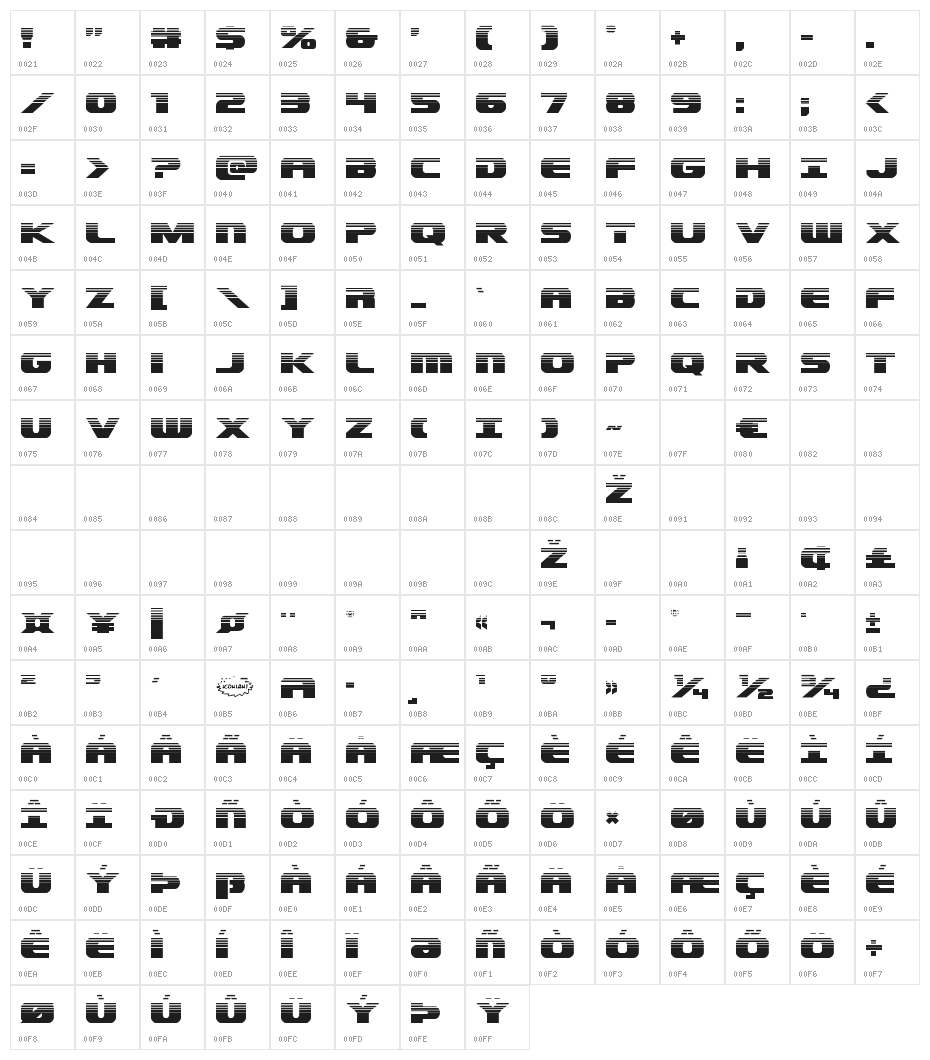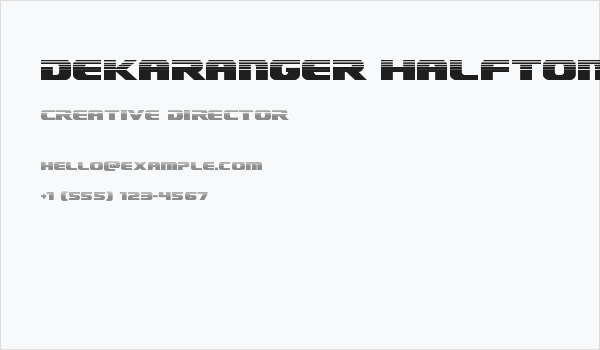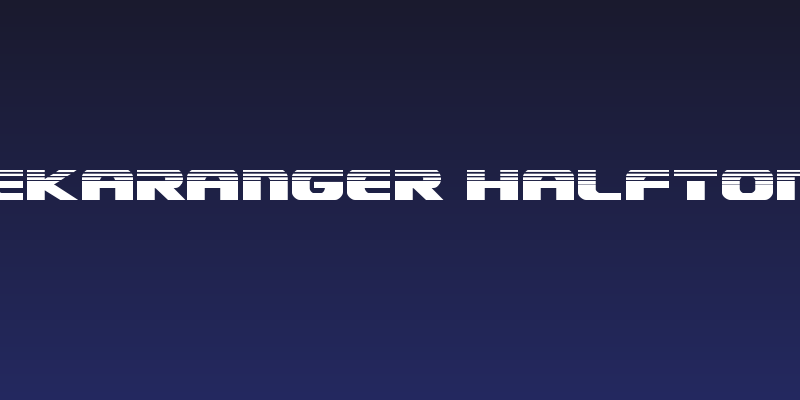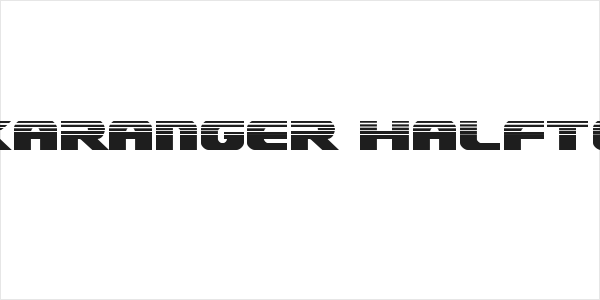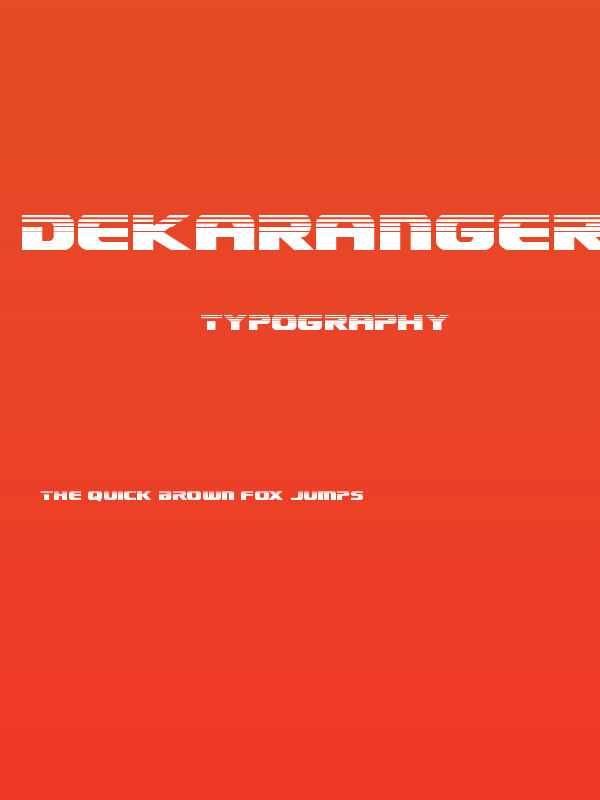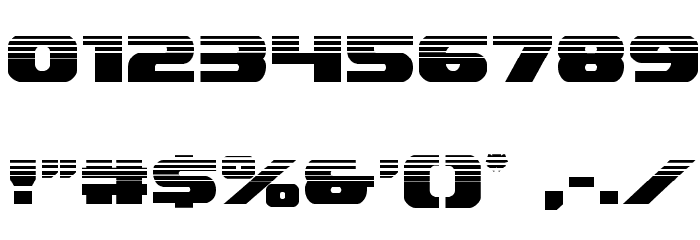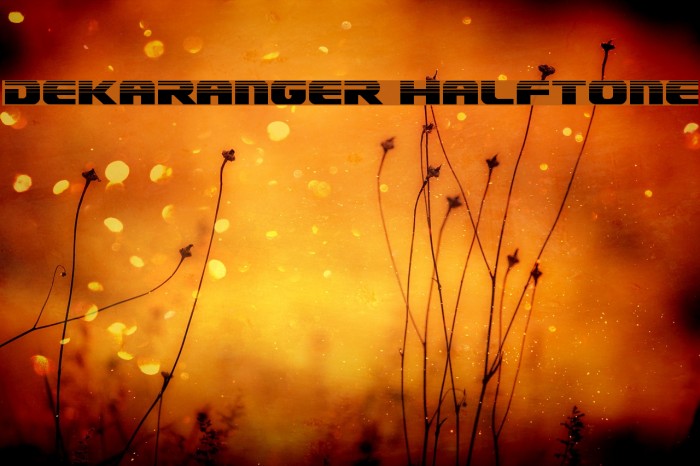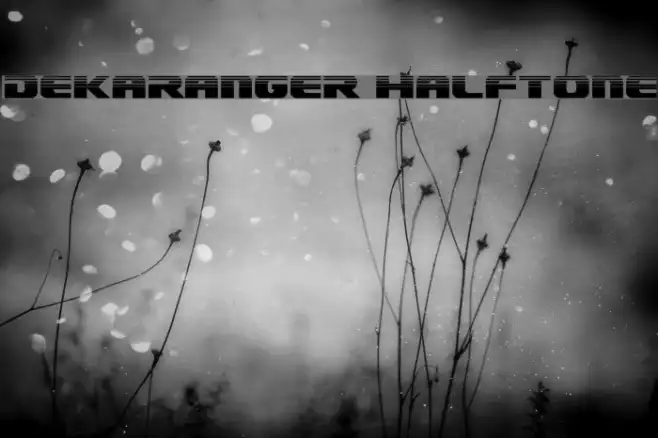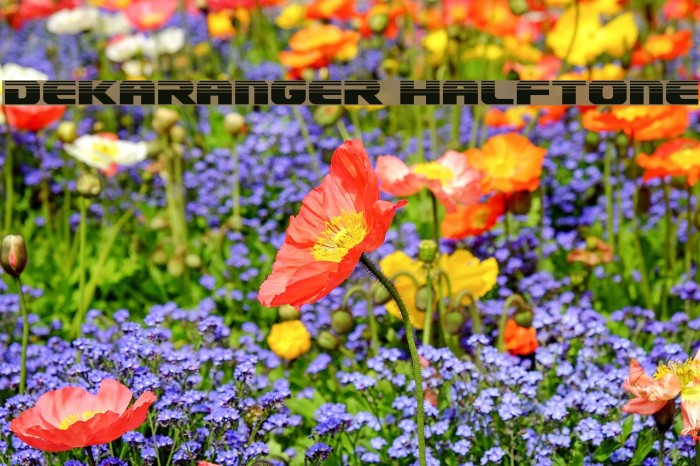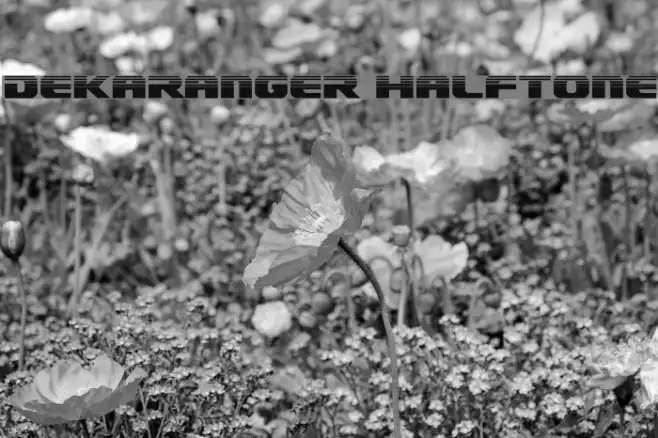
Dekaranger Halftone Font
Dekaranger Halftone Description
This font features a bold, futuristic design with a halftone effect that gives it a unique, dynamic appearance. The characters are constructed with a series of horizontal lines that create a sense of movement and energy. The uppercase letters are particularly striking, with a strong geometric structure that emphasizes their boldness. The numbers and special characters maintain this aesthetic, ensuring consistency across all glyphs. This font is ideal for projects that require a modern, tech-inspired look, such as digital media, gaming, or technology branding.
| Proposed Projects | Ideal for digital media, gaming, technology branding, and futuristic designs. |